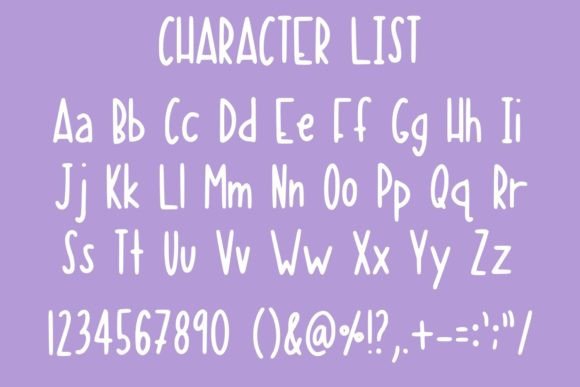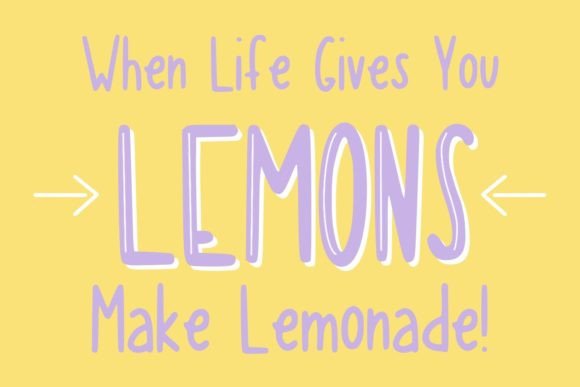
About Lemon Lavender
Lemon Lavender is an incredibly quirky and eye-catching font. Add it confidently to your projects, and you will be amazed at the results.